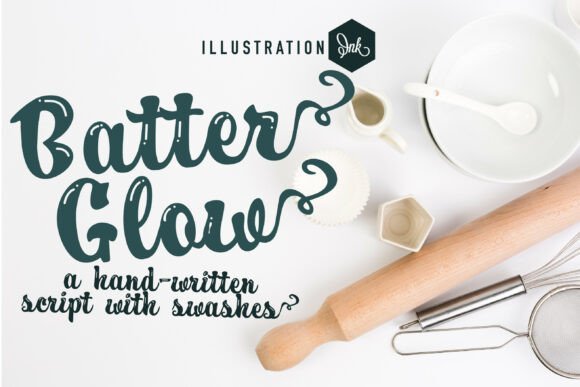
Introduction to Batter Glow Font
This hand-crafted font is a fun script with a mix of thick and thinner lines.
Solid version included A hand-crafted font is a font that is designed to look like it was written by hand.
Key Features of Batter Glow Font
Why Choose Batter Glow Font?